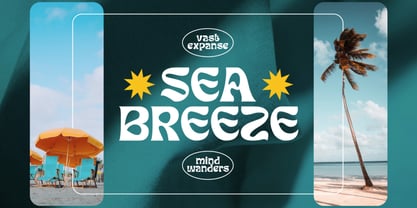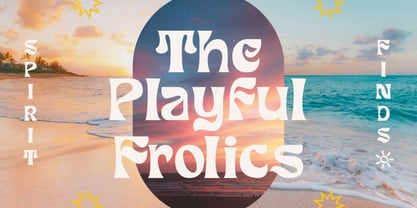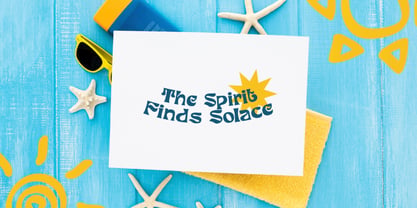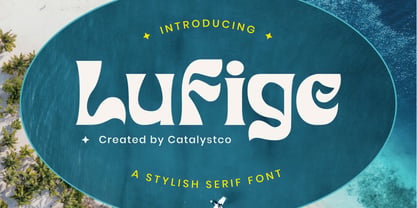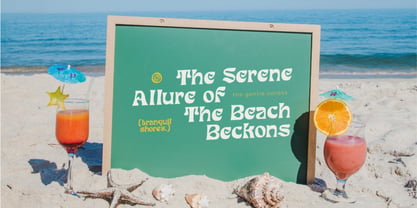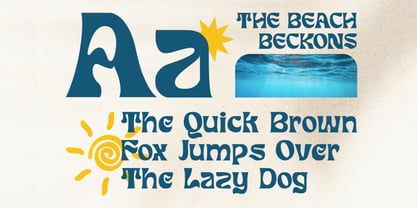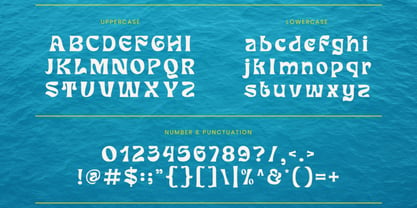
Lufige
Lufige is a bold and stylish serif display font inspired by coastal aesthetics and tropical energy. Its sculpted letterforms combine soft curvature with sharp precision, creating a rhythmic, confident, and modern look. Perfect for lifestyle branding, travel posters, or magazine titles, Lufige brings a refreshing breeze of creativity to your design. With a complete set of uppercase and lowercase letters, numerals, and punctuation, this font offers excellent versatility for both digital and print projects. Its elegant flow and bold contrast make Lufige an ideal choice for logos, summer campaigns, and editorial headlines that seek both sophistication and personality.